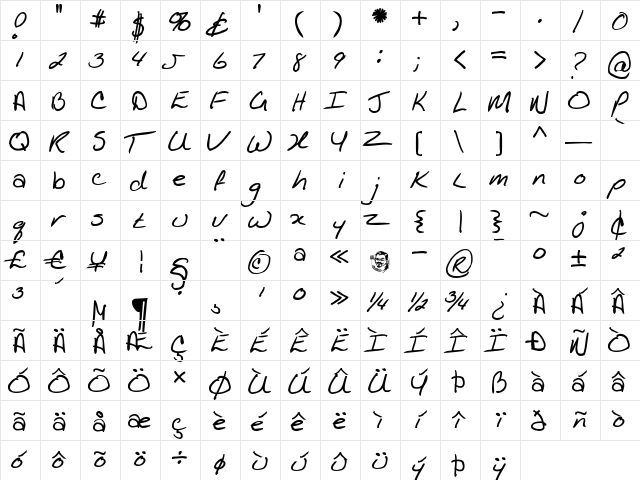
KathleenBold Regular
Design Context for KathleenBold Typeface
KathleenBold is a composed and adaptable typeface that performs quietly and consistently across a wide range of design contexts. Its bold stroke weight gives it real presence on the page.